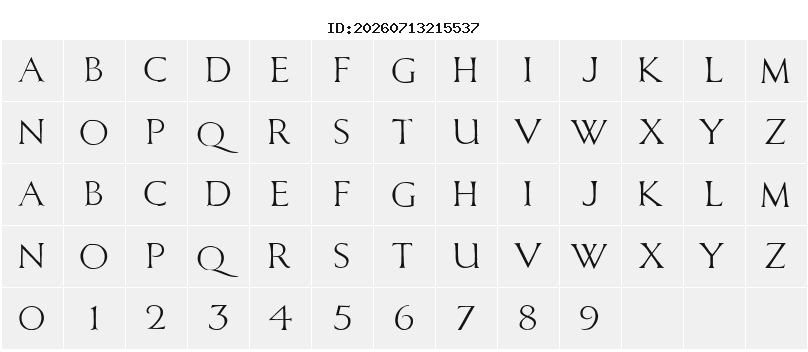
CaligulaDodgy.ttf is a modern, elegant sans-serif font designed for ultimate readability and visual harmony. Perfect for branding, headlines, web design, and print materials.